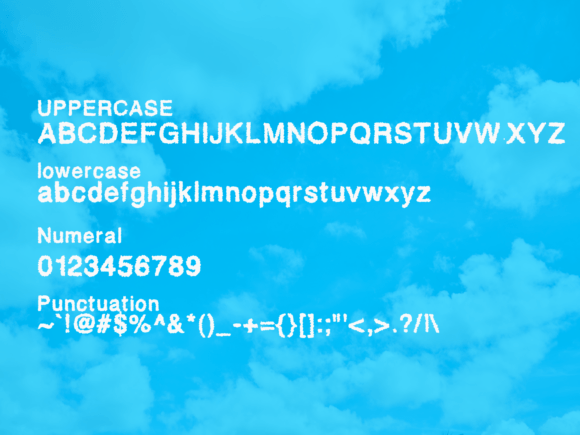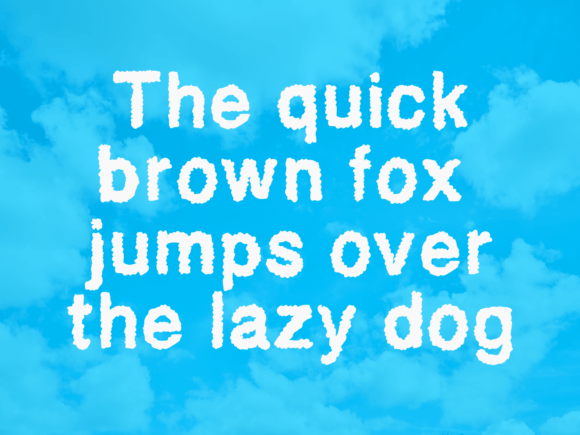
Cloud Bubble Font
Cloud Bubble is a charming handwritten font that looks like fluffy clouds. Its whimsical style adds a playful touch to any design, making text feel light and airy, just like floating in the sky.